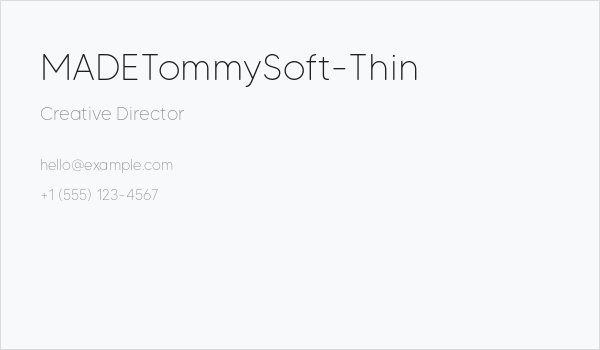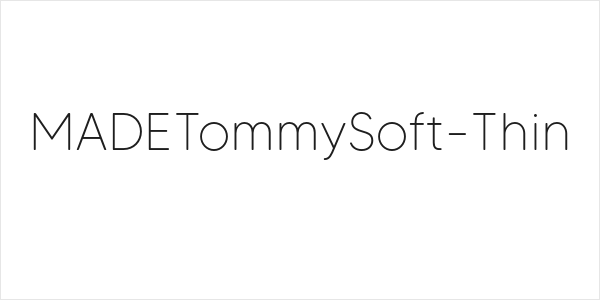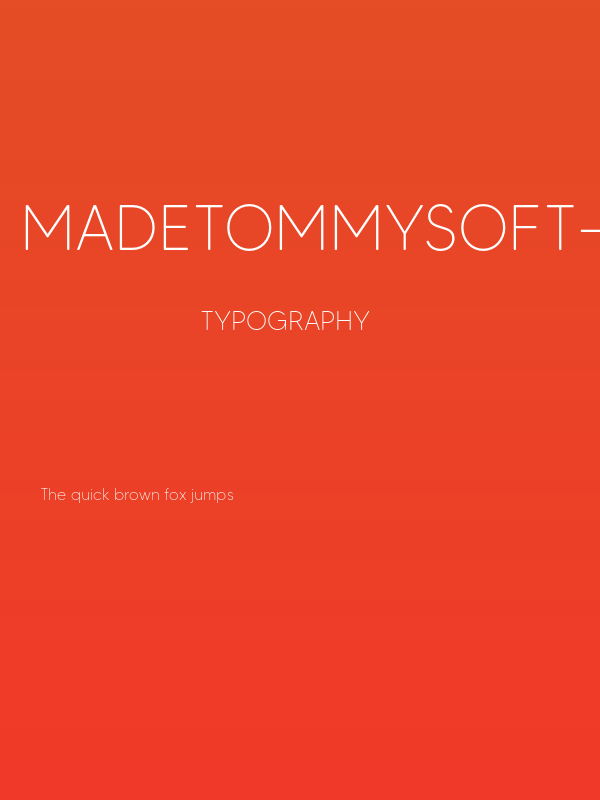
MADETommySoft-Thin Font
This font features a clean and minimalist design with a thin, elegant stroke. The characters are evenly spaced, contributing to a modern and airy appearance. Its geometric shapes and uniform line weight make it highly legible, even at smaller sizes. The font's simplicity and clarity are ideal for conveying a sense of sophistication and modernity. It includes a full set of uppercase and lowercase letters, numbers, and a variety of special characters, making it versatile for various design needs.
Proposed ProjectsIdeal for branding, editorial design, web design, and minimalist posters.